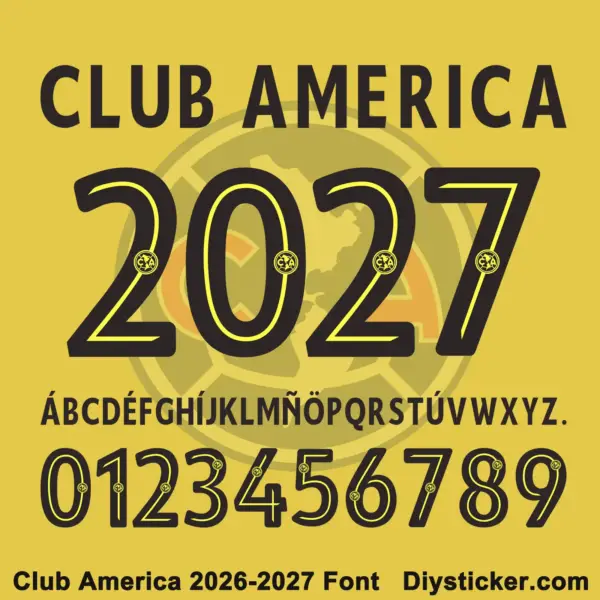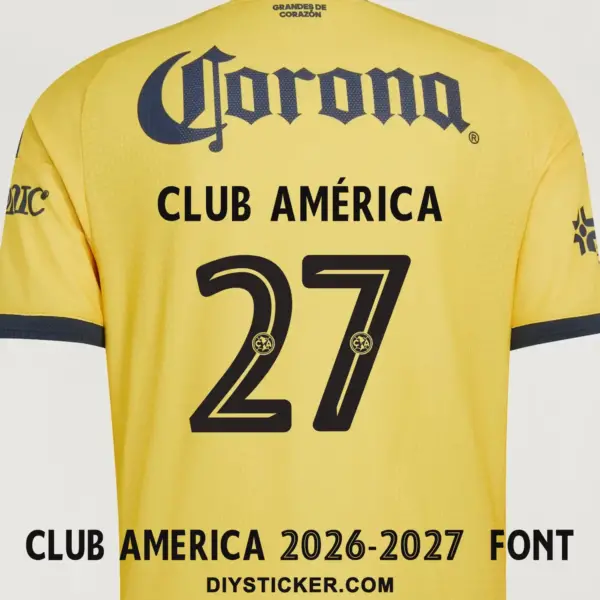
Club América 2026-2027 Font & Numbers Download (TTF, OTF, Vector)
Capture the bold spirit of Las Águilas with this official kit typography set! Engineered for apparel decorators seeking an authentic Club America 2026-2027 font download, this digital asset package features the complete Club America 2026-27 kit font in high-contrast dark navy blue with yellow inner inline detailing. Highlighted by sharp angular number cuts, curved tail strokes, and the official circular Club América crest embedded within each digit, it is the ideal custom jersey printing font Club America choice for heat press and vinyl production.
Complete uppercase alphabet, Club America jersey numbers vector, and international accents (including
Á,É,Í,Ñ,Ö,Ú).
Elevate Your Kit Customization with the Club América 2026-2027 Font
Upgrade your custom sports apparel catalog with the official match-day typography for Mexico’s legendary Club América! This digital asset pack delivers a complete Club America 2026-2027 font download tailored for Liga MX and international tournament shirt printing. Featuring condensed sans-serif uppercase lettering for clear nameplate reading (CLUB AMÉRICA) paired with dynamic block-style numbers that incorporate an inner yellow stripe accent and the team logo at the center of each digit, this design offers striking contrast against yellow shirt fabric.
Comprehensive Character Mapping
A-Z Uppercase Alphabet: Clean, high-contrast condensed sans-serif letterforms built for optimal visibility across player nameplates.
0-9 Custom Inline Squad Numbers: Dark navy numeric glyphs with inner yellow accent lines and the official circular CA crest embedded at the intersection (supplied as Club America jersey numbers vector).
Special Accents & Diacritics: Complete set of punctuation marks and Spanish language accents (
Á,É,Í,Ñ,Ö,Ú, etc.) to accurately render star player nameplates using this custom jersey printing font Club America package.